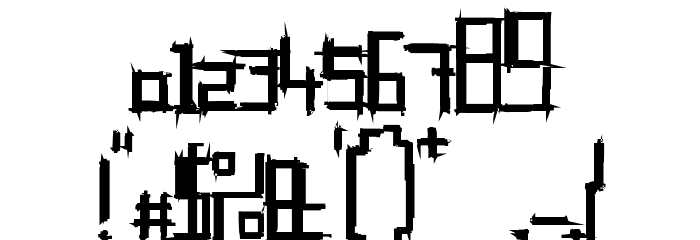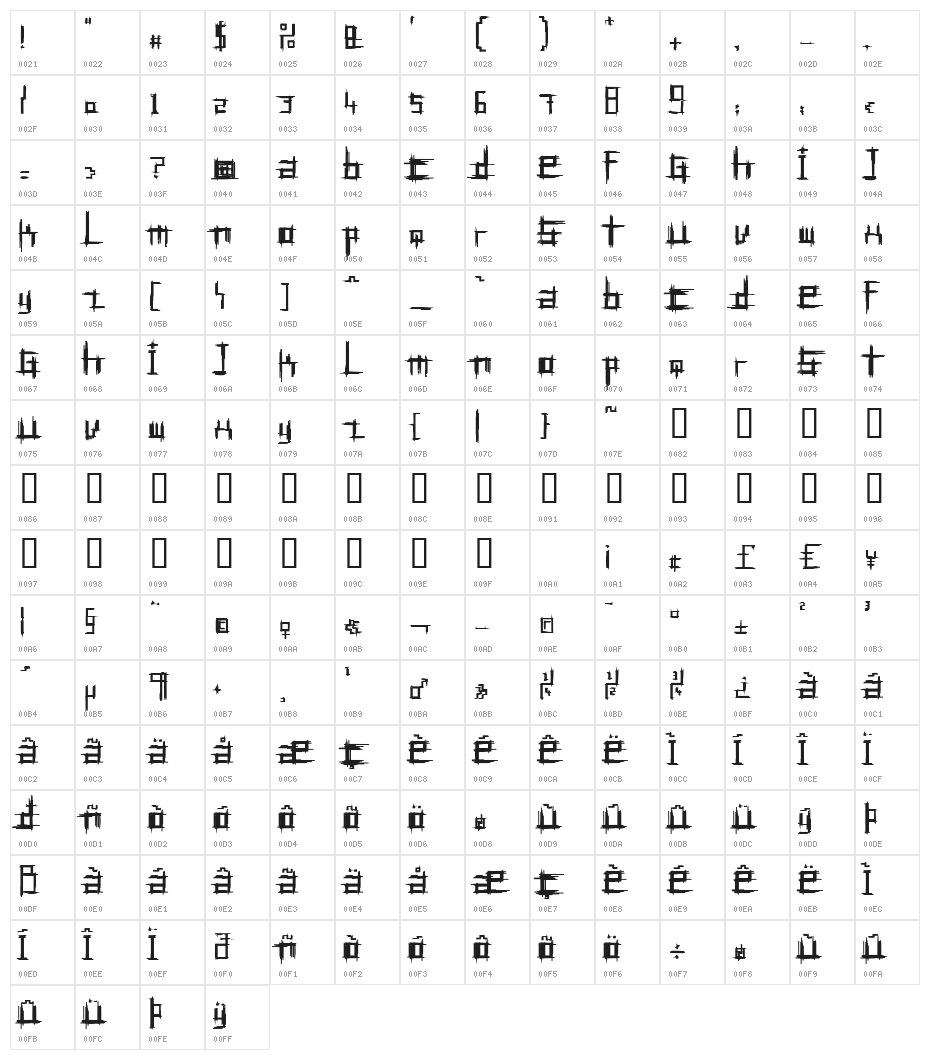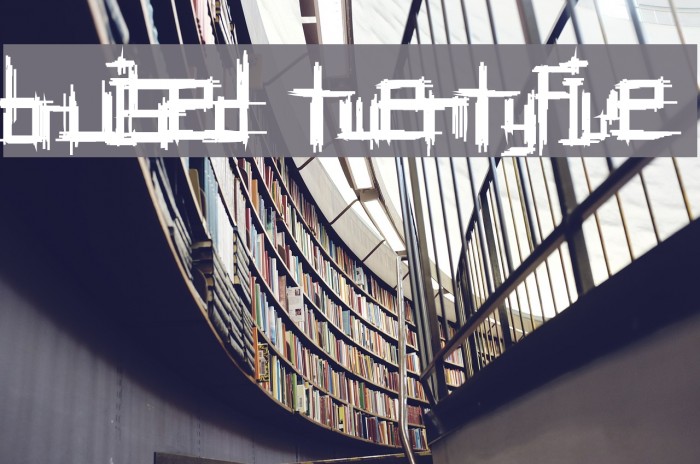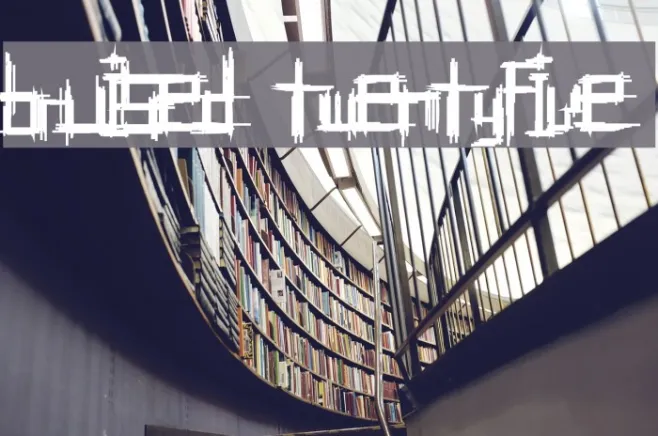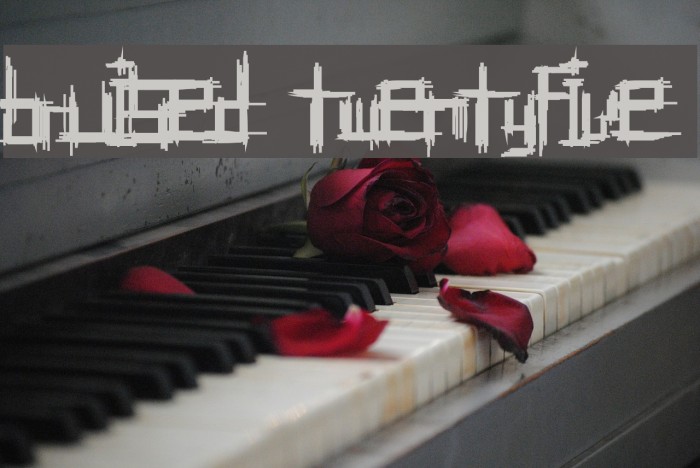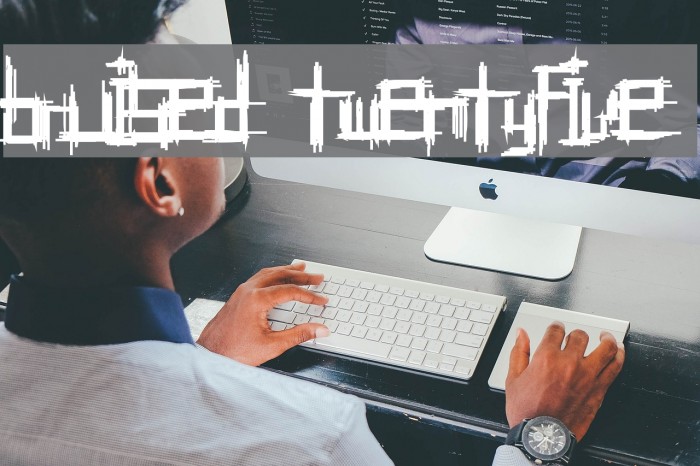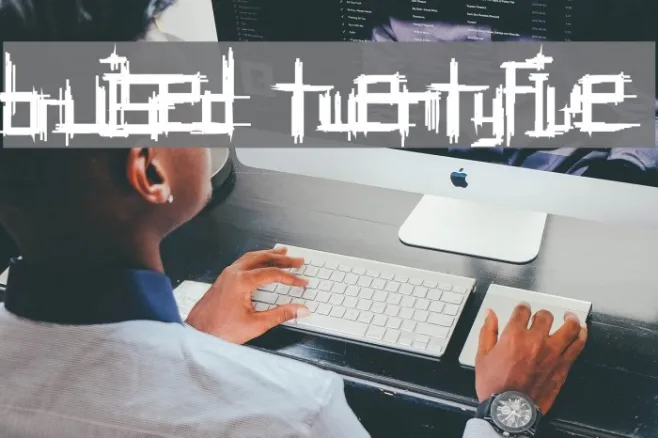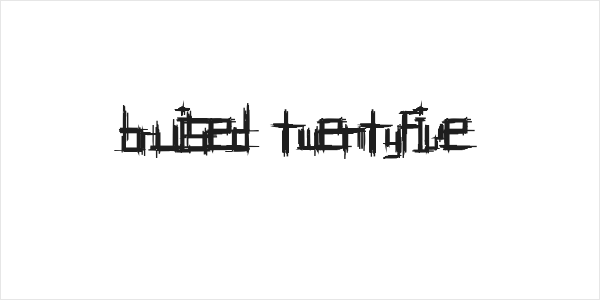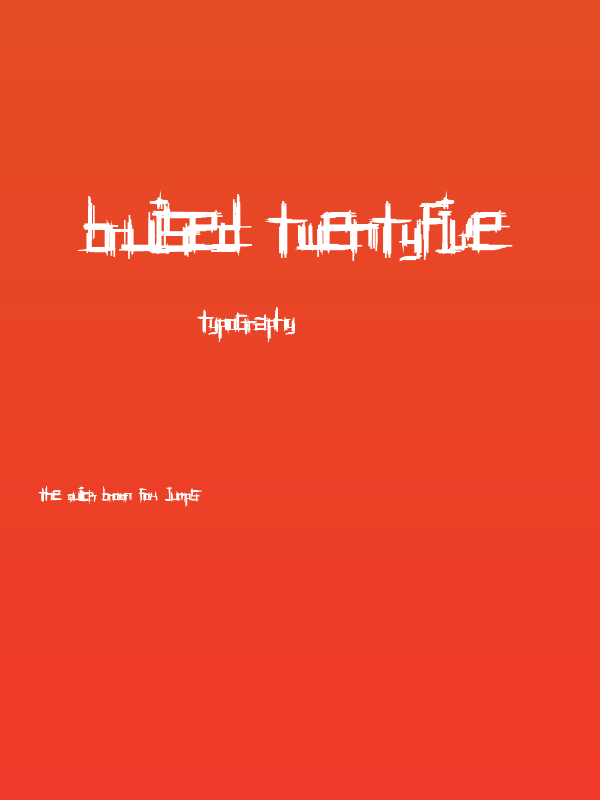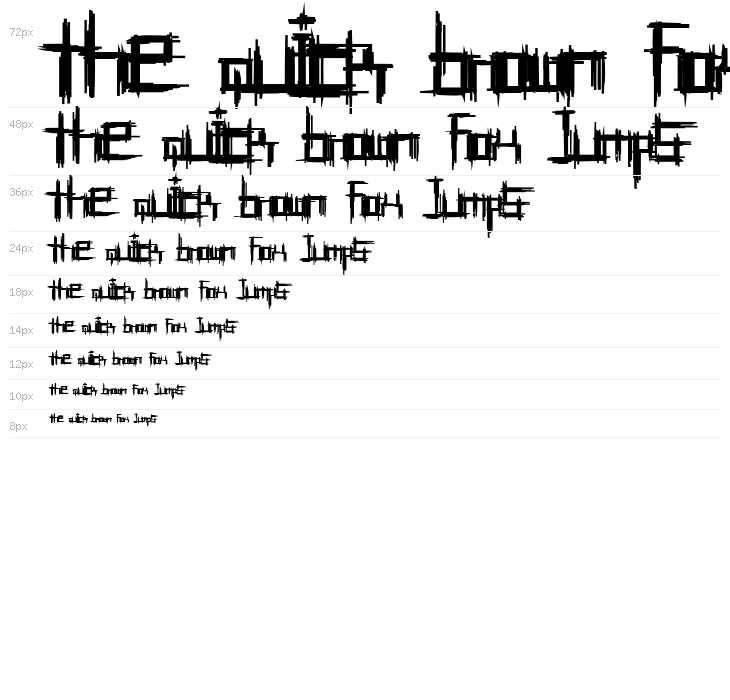
Bruised TwentyFive Font
Bruised TwentyFive Description
This font exhibits a highly distressed and grungy aesthetic, characterized by jagged edges and an irregular, hand-drawn appearance. The letters are bold and heavily textured, giving them a rough, almost chaotic look. The uppercase and lowercase letters maintain a consistent style, with sharp angles and uneven lines that suggest a sense of urgency or rawness. Numbers and special characters follow the same rugged design, enhancing the overall edgy feel. This font is ideal for projects that require a strong, impactful visual statement, such as music album covers, posters, or any creative work that aims to convey intensity and emotion.
| Overall Style | Grunge, Edgy, Raw |
| Use Case | Headlines, Logos, Artistic projects |
| Proposed Projects | Album covers, posters, streetwear branding, edgy graphic designs. |